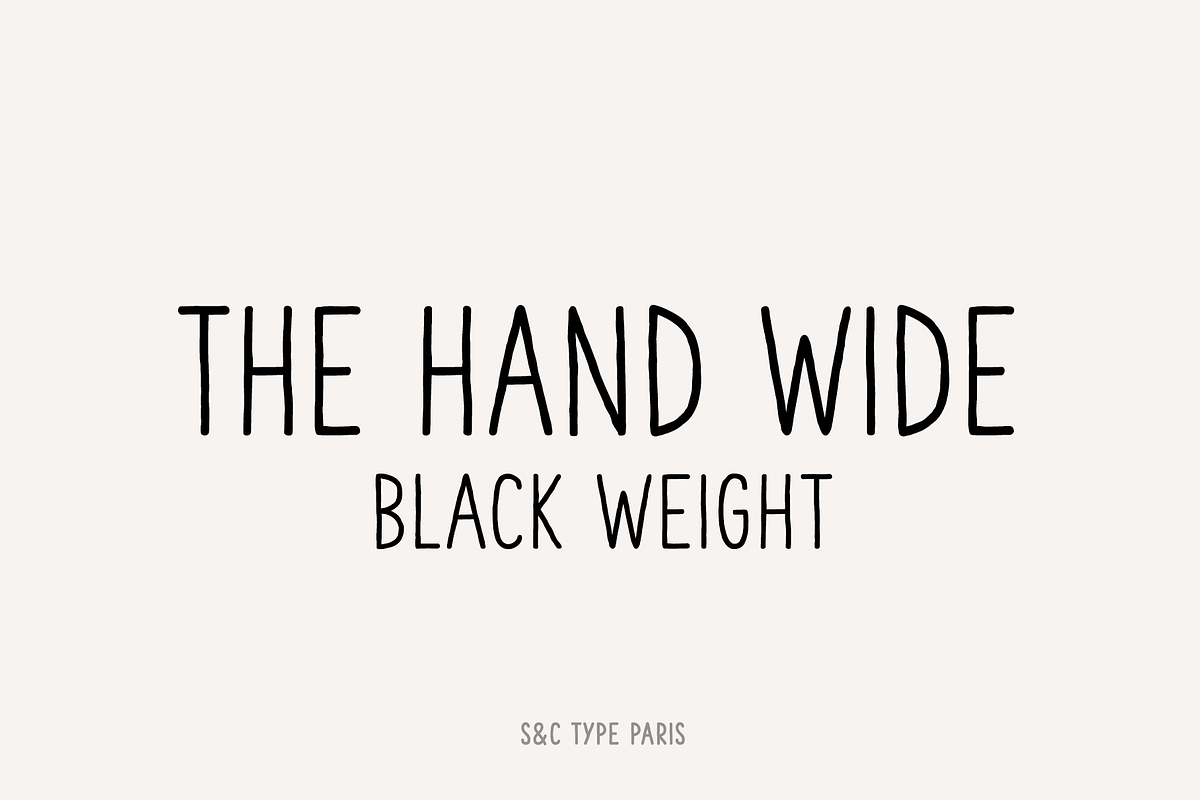
The Hand Wide Font Free Download is a bold and expressive handwritten typeface with extended letterforms that give your designs extra personality and presence. Ideal for posters, titles, branding, and casual content, this font combines the authenticity of hand-drawn lettering with a wide stance that makes it instantly eye-catching.
The Hand Wide Font Free Download delivers a relaxed, creative feel while maintaining readability and style. Whether you're working on social media graphics, lifestyle branding, or creative headers, this font adds a personal and playful touch to your typography. Try it now and see how The Hand Wide can open up your design space—literally and visually.